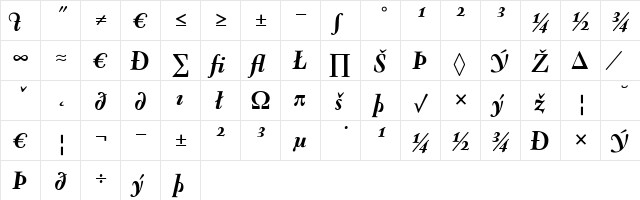
Oneleigh Black Italic
Design Context for Oneleigh Typeface
Oneleigh takes a measured approach to typography — its balanced proportions and neutral character make it a reliable workhorse for both digital and print work. The dynamic lean of this cut emphasises speed and emphasis in any layout.
Pro Tip: Try Oneleigh for annotation and caption copy alongside an upright companion — the contrast in angle creates a dynamic but ordered typographic system.